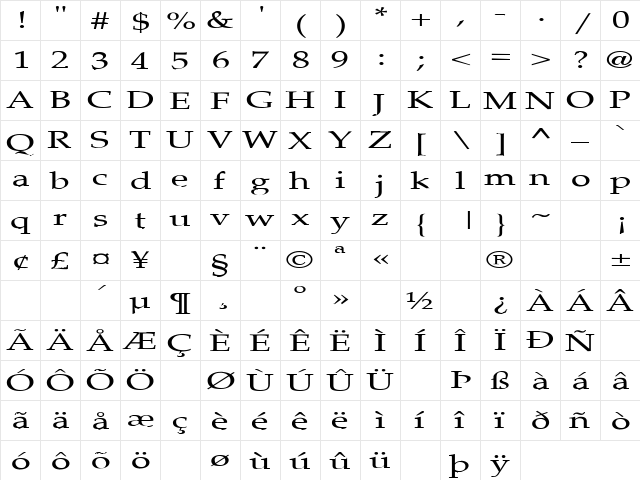
Southbound 8 Regular
Design Context for Southbound 8 Typeface
Southbound 8 is a composed and adaptable typeface that performs quietly and consistently across a wide range of design contexts.